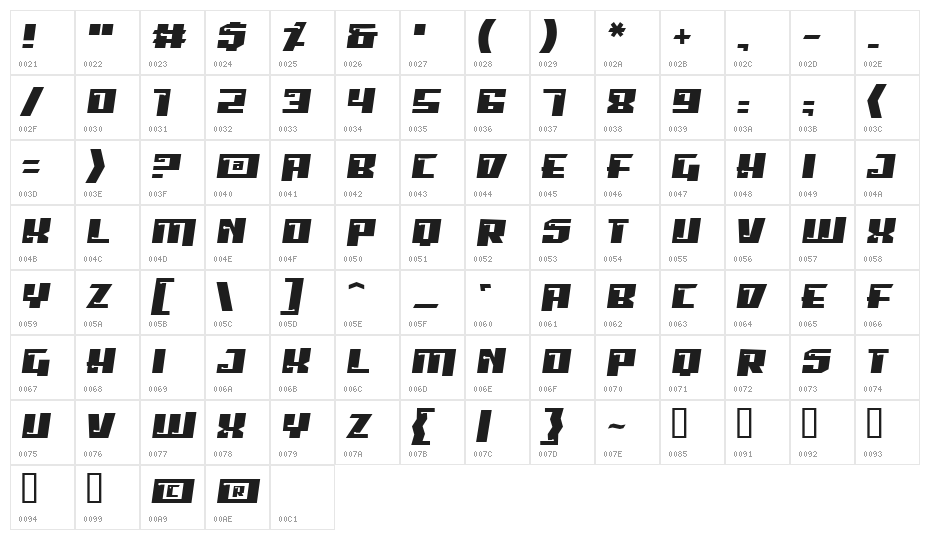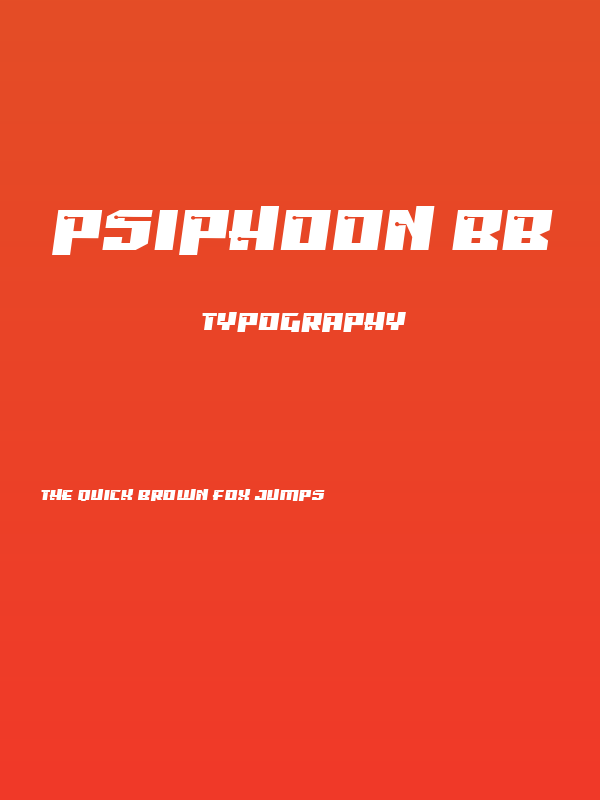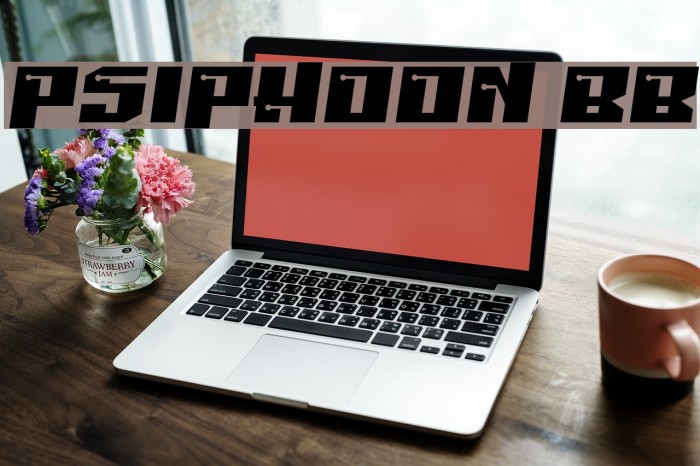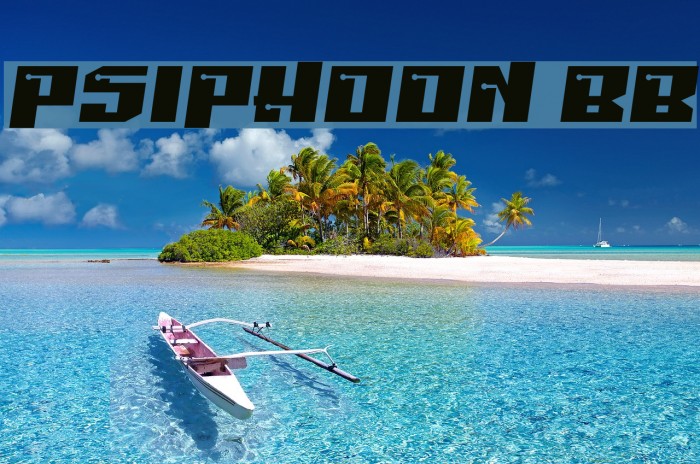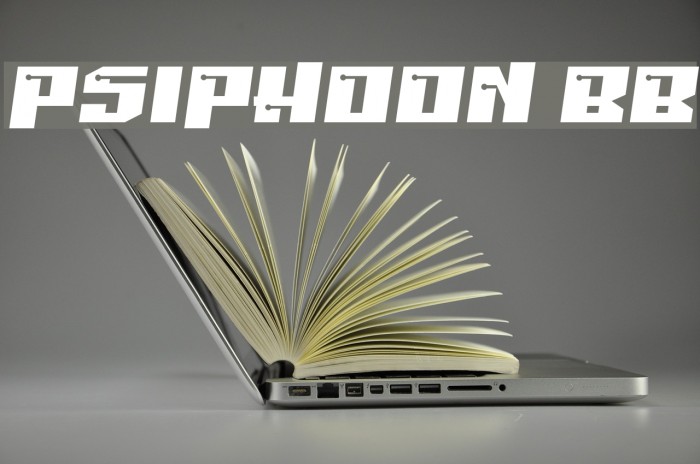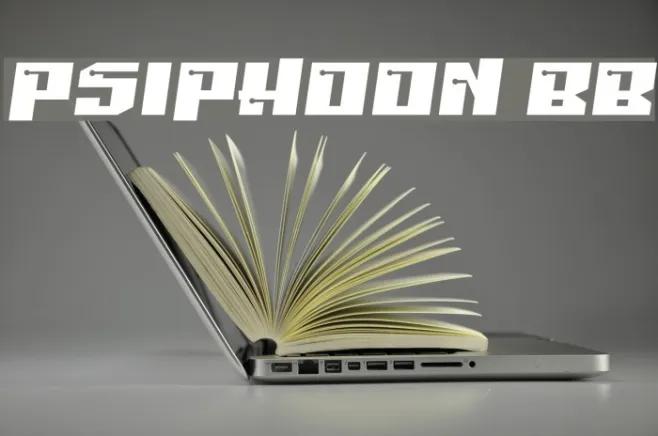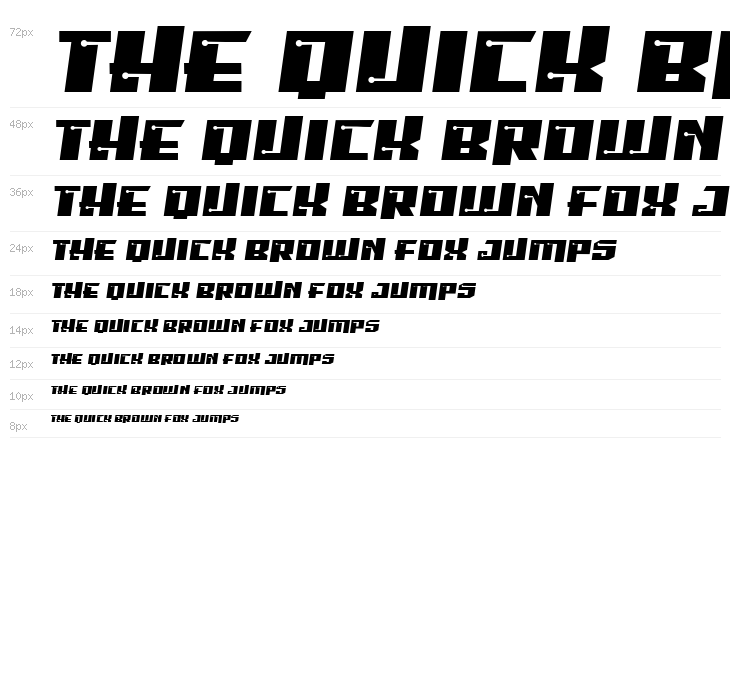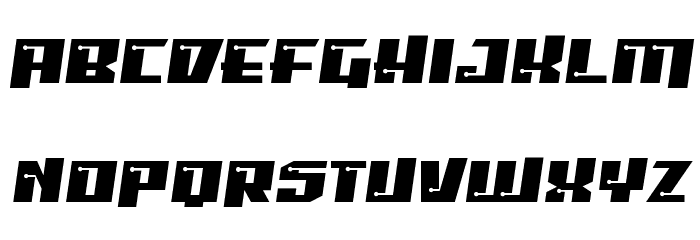
Psiphoon BB Font
Psiphoon BB Description
This font features a bold and dynamic design with sharp, angular edges and a futuristic aesthetic. The characters are heavily stylized, incorporating geometric shapes and unique cutouts that give them a distinct, edgy appearance. The uppercase and lowercase letters maintain a consistent style, with the uppercase being slightly more pronounced. The numbers and special characters follow the same design principles, ensuring uniformity across all glyphs. This font is ideal for projects that require a modern and impactful look, such as technology-themed designs or video game graphics.
| Proposed Projects | Ideal for technology-themed designs, video game graphics, and modern branding projects. |